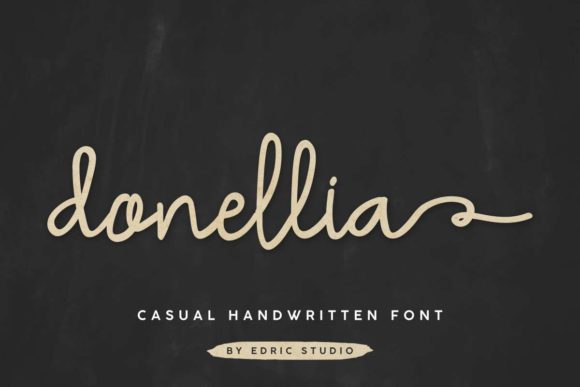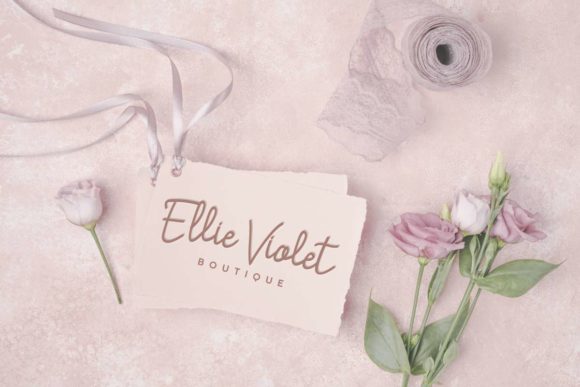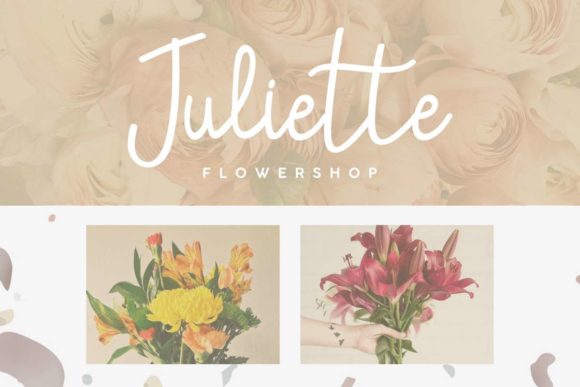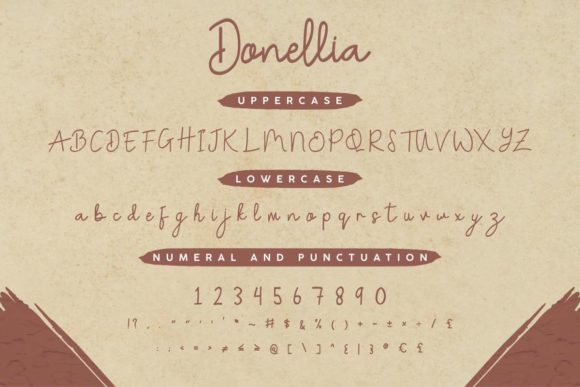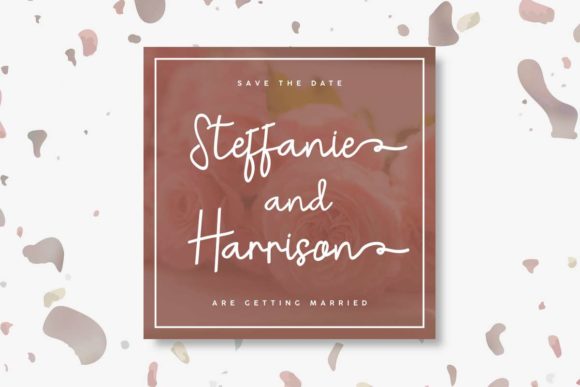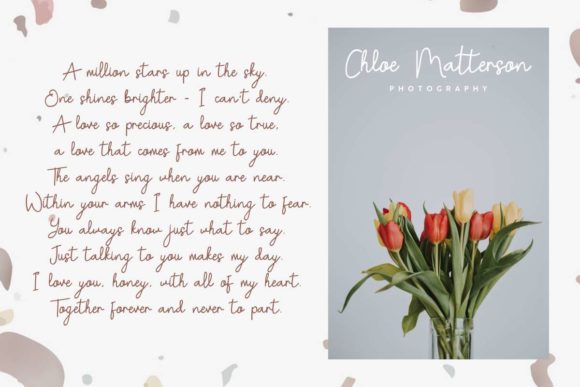
The Donellia Font: Elevate Your DIY Projects with Elegance
I’ll never forget the time I was working on a custom wedding invitation project for a dear friend. The design was almost complete, but something was missing – the perfect font. I scoured the internet, tried out countless options, but none seemed to fit the elegant and whimsical vibe I was going for. That’s when I stumbled upon the Donellia font. It was love at first sight! 💕
Donellia is an exclusive signature handwriting script font with an elegant style that’s perfect for bringing any DIY project to life. In this article, I’ll share my experience with this gorgeous and unique font, its features, and how to make the most of it in various design platforms.
An Honest Review of Donellia Font
What I Love About Donellia ✨
- 💫 Elegant and sophisticated: Donellia exudes refinement and poise, making it perfect for high-end projects.
- ✅ Highly legible: Despite its script nature, Donellia is surprisingly easy to read, even in smaller sizes.
- 🎨 Versatile: This font is suitable for a wide range of projects, from wedding invitations to branding and packaging.
- 🖌️ Unique: Donellia’s distinctive style ensures your project will stand out from the crowd.
While Donellia is an exceptional font, it’s not without its limitations. ⚠️ Some users may find that the font’s elegance can be lost in very small sizes or when used in all caps. However, with a little creativity and experimentation, these limitations can be easily overcome.
- Experiment with OpenType features, such as ligatures and stylistic alternates, to add personality to your text.
- Choose Donellia from the font menu and access OpenType features, such as glyphs and swashes, to add depth and interest to your text.
- Choose Donellia from the font menu and use the font’s built-in features, such as ligatures, to add a touch of sophistication.
The Story Behind Donellia
While the true story behind Donellia’s creation is unknown, it’s easy to imagine that it was designed with a passion for elegance and refinement. Perhaps the designer, inspired by classic calligraphy, set out to create a font that would bring a touch of sophistication to any project. Whatever the inspiration, Donellia has undoubtedly become a beloved font among designers and crafters.
| Font Name | Donellia Font |
| Author | EdricStudio |
| What type of projects is Donellia best suited for? | Donellia is perfect for projects that require elegance and sophistication, such as wedding invitations, branding, and packaging. |
| Is Donellia easy to read? | Yes, despite its script nature, Donellia is surprisingly easy to read, even in smaller sizes. |